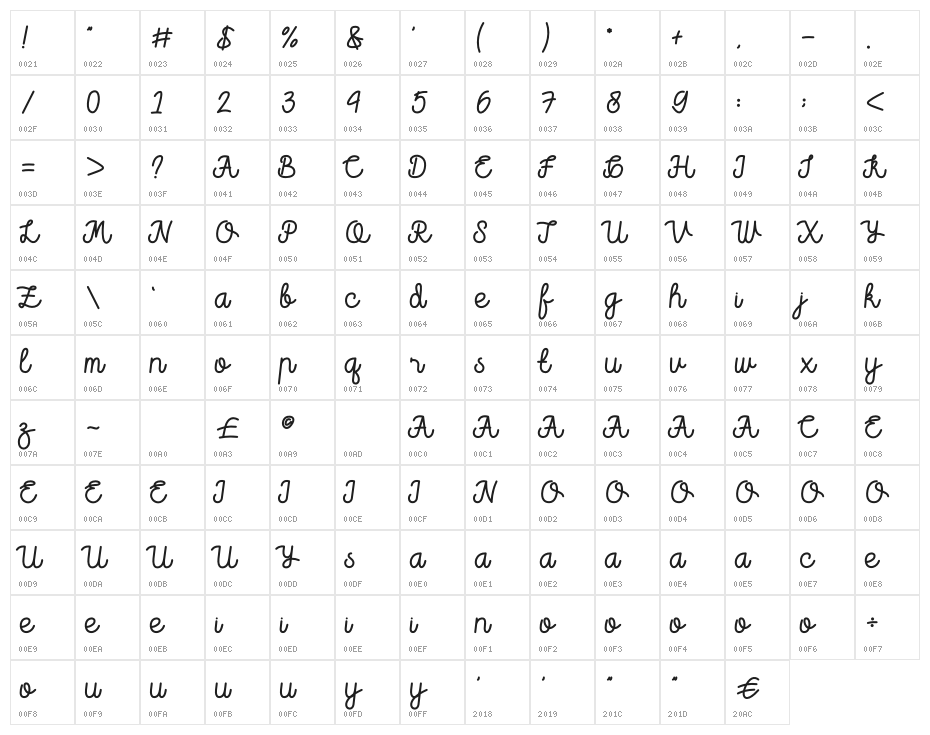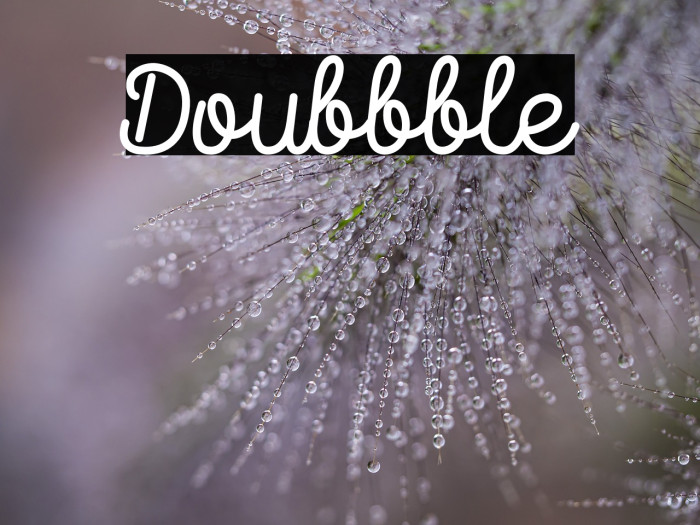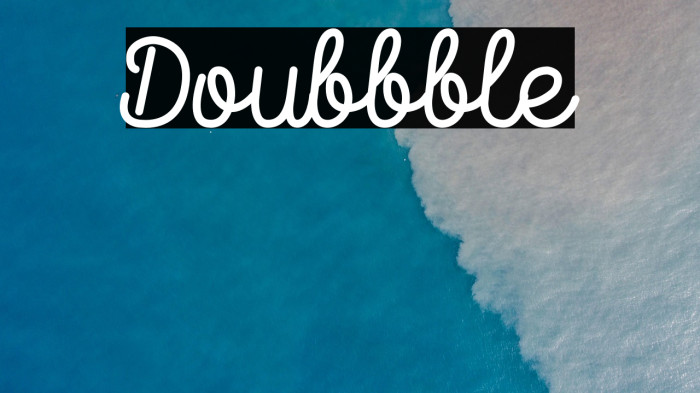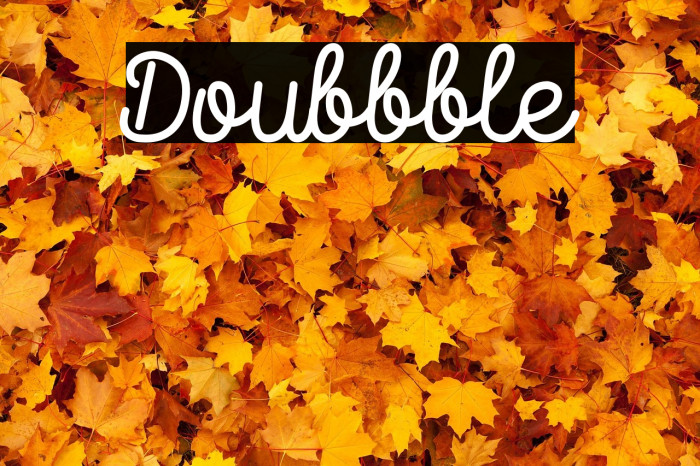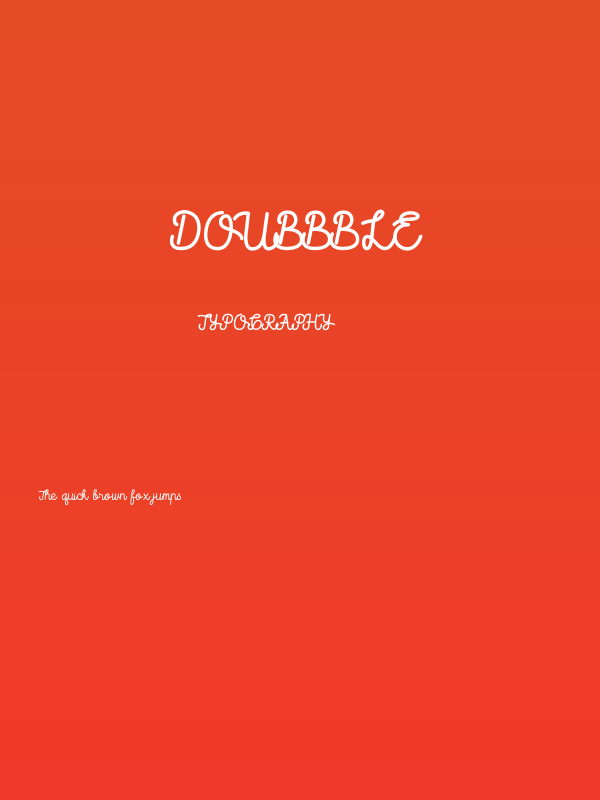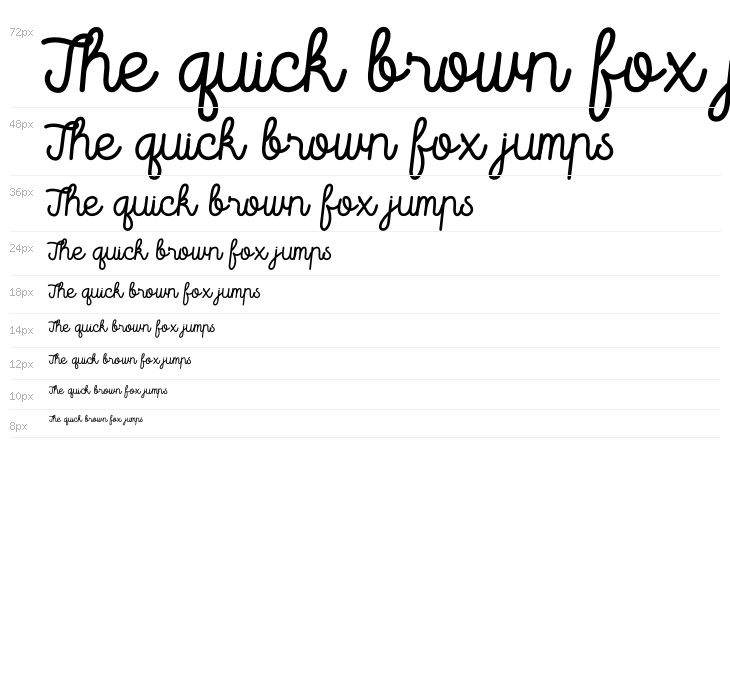
This font features a playful and flowing script style, characterized by its smooth, continuous strokes that mimic the fluidity of handwriting. The letters are interconnected, creating a cohesive and elegant appearance. The uppercase letters maintain a consistent height, while the lowercase letters exhibit a slight variation in size, adding to the font's dynamic nature. The numerals and special characters are crafted with the same attention to detail, ensuring uniformity across all elements. This font's design is both approachable and stylish, making it suitable for a variety of creative applications.
| Use Case | Logos, Invitations, Social media graphics |
| Proposed Projects | Ideal for wedding invitations, greeting cards, branding, and social media graphics. |